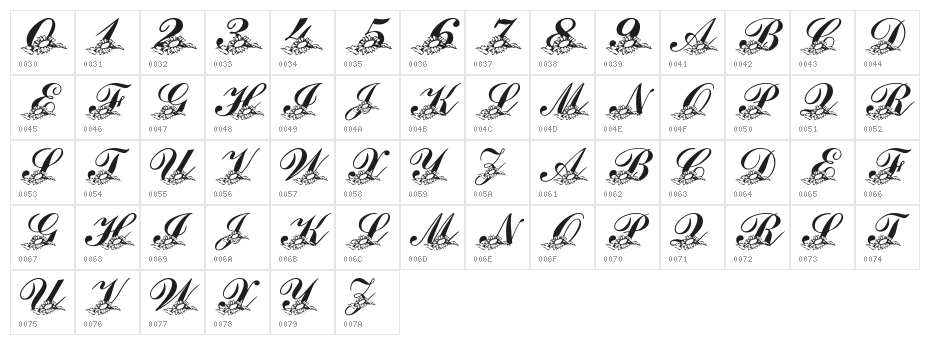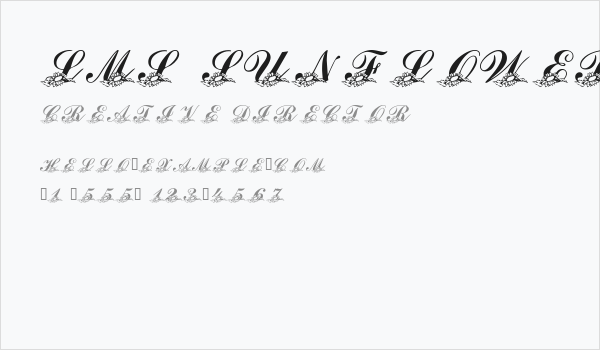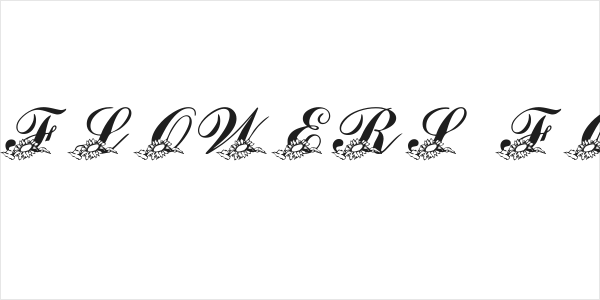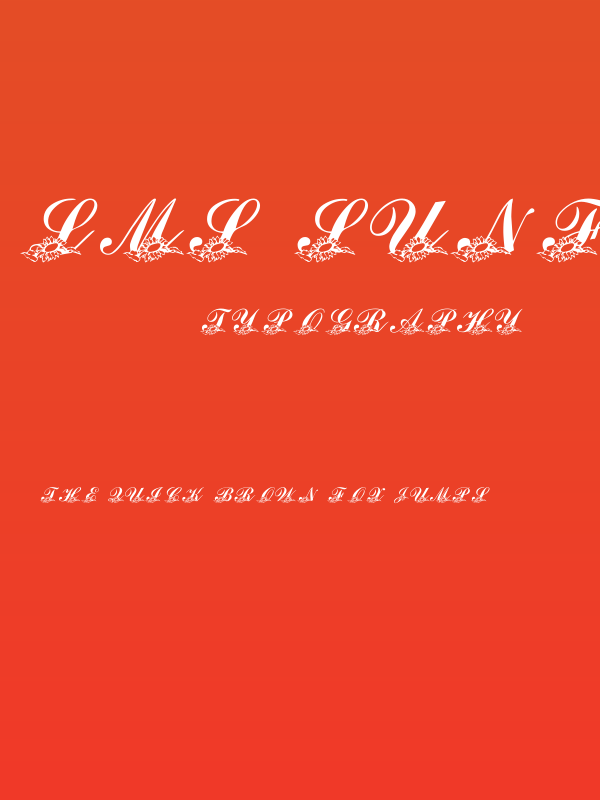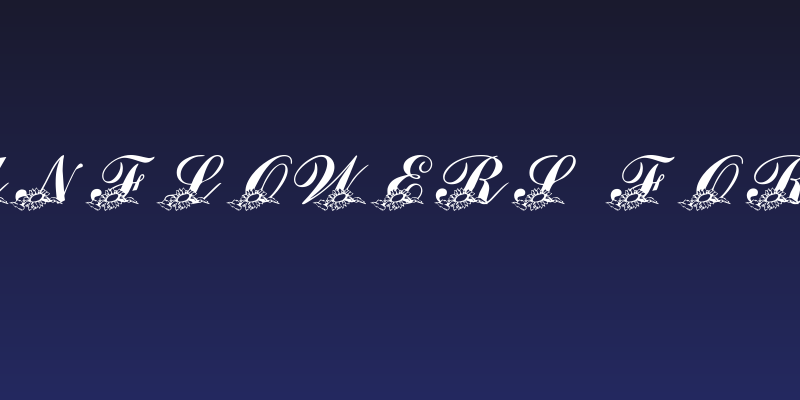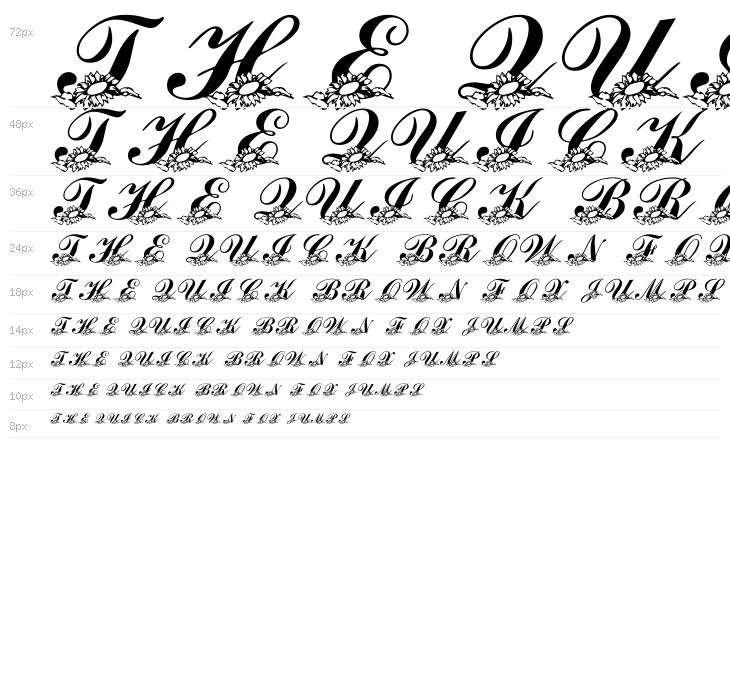
LMS Sunflowers for Jodie Font
LMS Sunflowers for Jodie Description
This font features an elegant and decorative script style, characterized by its flowing, cursive letters adorned with sunflower motifs. Each character is intricately designed, combining traditional calligraphic elements with a unique floral embellishment that adds a touch of nature-inspired beauty. The uppercase and lowercase letters maintain a consistent style, with smooth curves and a graceful appearance. The numbers and special characters are similarly styled, ensuring a cohesive look across all glyphs. This font is ideal for projects that require a sophisticated and artistic touch, such as wedding invitations, greeting cards, or branding materials that aim to convey elegance and creativity.
| Use Case | Headlines, Artistic designs |
| Proposed Projects | Wedding invitations, greeting cards, branding materials, artistic designs. |